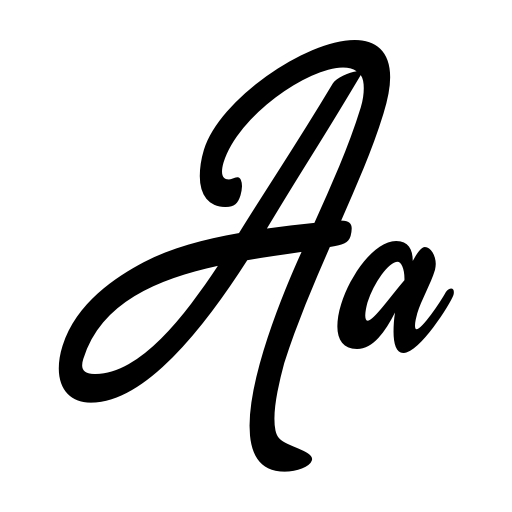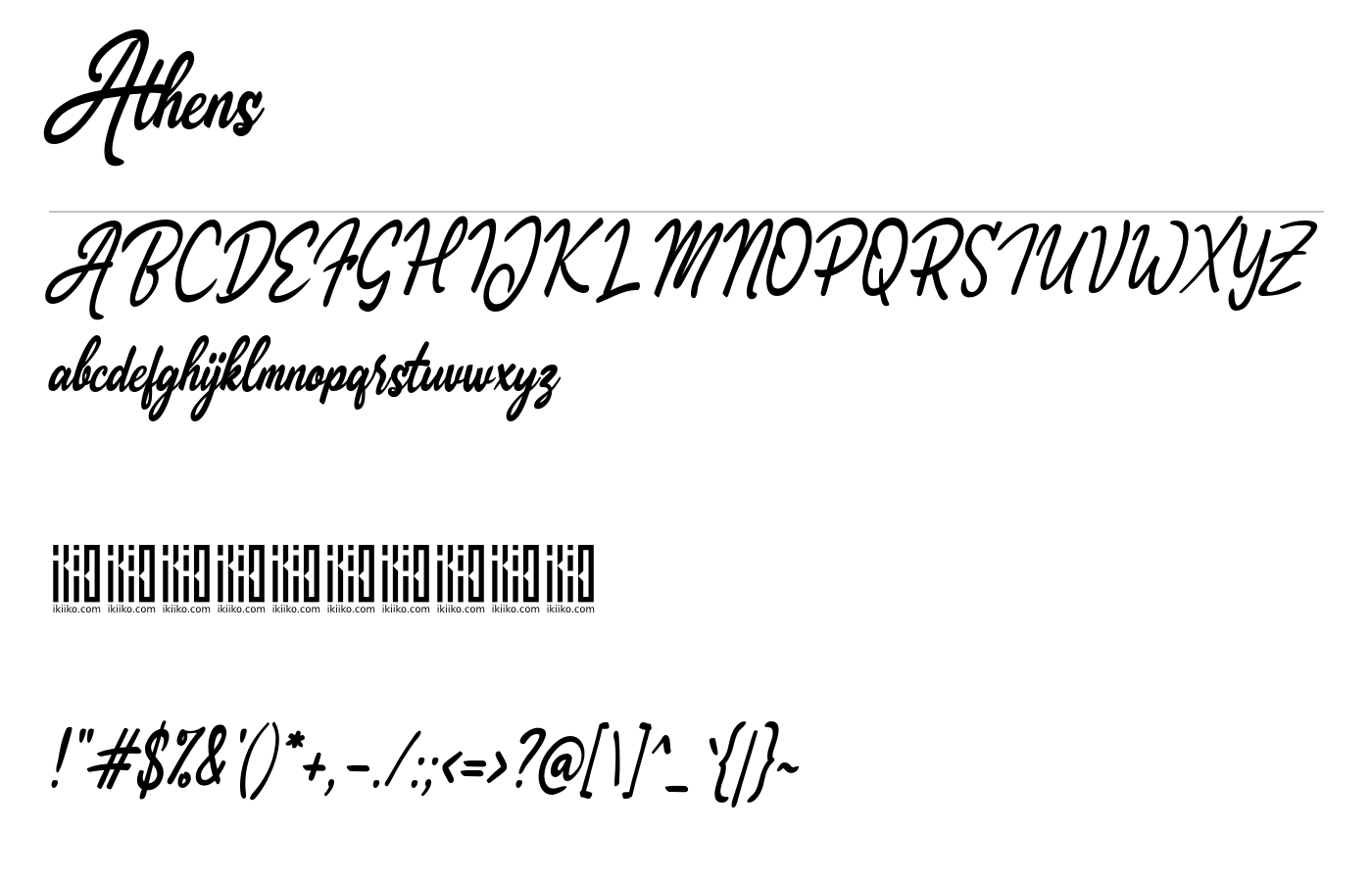
Athens Font is a stylish and elegant script typeface featuring smooth, flowing strokes with a moderate contrast that gives it a natural, handwritten feel. Its refined letterforms and slightly condensed width make it perfect for branding, invitations, and elegant editorial designs where a touch of sophistication and warmth is desired. This font works best in headlines and display uses, adding a personal yet polished charm to any creative project.
Athens Font
About Athens Font
| Font family | Athens Font |
| Designer | Wahyu Eka Prasetya, Andhika Pradana |